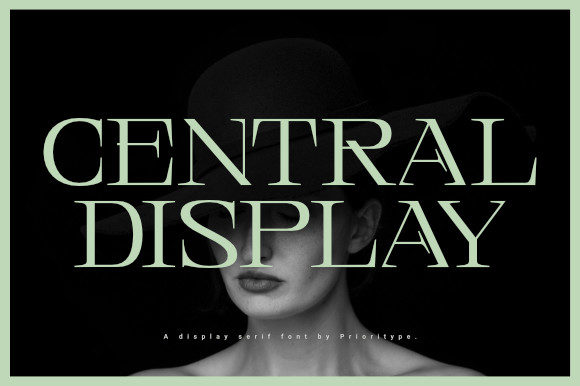
Prepare to be captivated by Central Display Font, the epitome of sophistication and charm in the world of typography. Immerse yourself in its timeless elegance, a serif font that exudes both a modern flair and a classic allure. Crafted with meticulous attention to detail by the renowned Prioritype, Central Display is not just a font; it's an artistic masterpiece that will elevate your designs to new heights.
Step into a realm of creativity where boundaries dissolve, and your imagination reigns supreme. Central Display's graceful curves and sharp serifs dance harmoniously, creating a visually stunning symphony that will leave your audience spellbound. Its versatility knows no bounds, adapting effortlessly to a myriad of projects, from enchanting wedding invitations to captivating social media posts.
With Central Display, you hold the key to unlocking a world of endless possibilities. Its innate beauty will transform your designs into captivating works of art, leaving a lasting impression on all who behold them. Prepare to be swept off your feet by Central Display's timeless allure, a font that will ignite your passion for creativity and redefine the boundaries of design.
Unleash the power of Central Display and witness the transformation of your designs into captivating masterpieces. Its timeless elegance will leave your audience captivated, while its versatility will empower you to conquer any creative challenge that comes your way. Experience the joy of effortless creativity and let Central Display guide you towards typographic greatness.